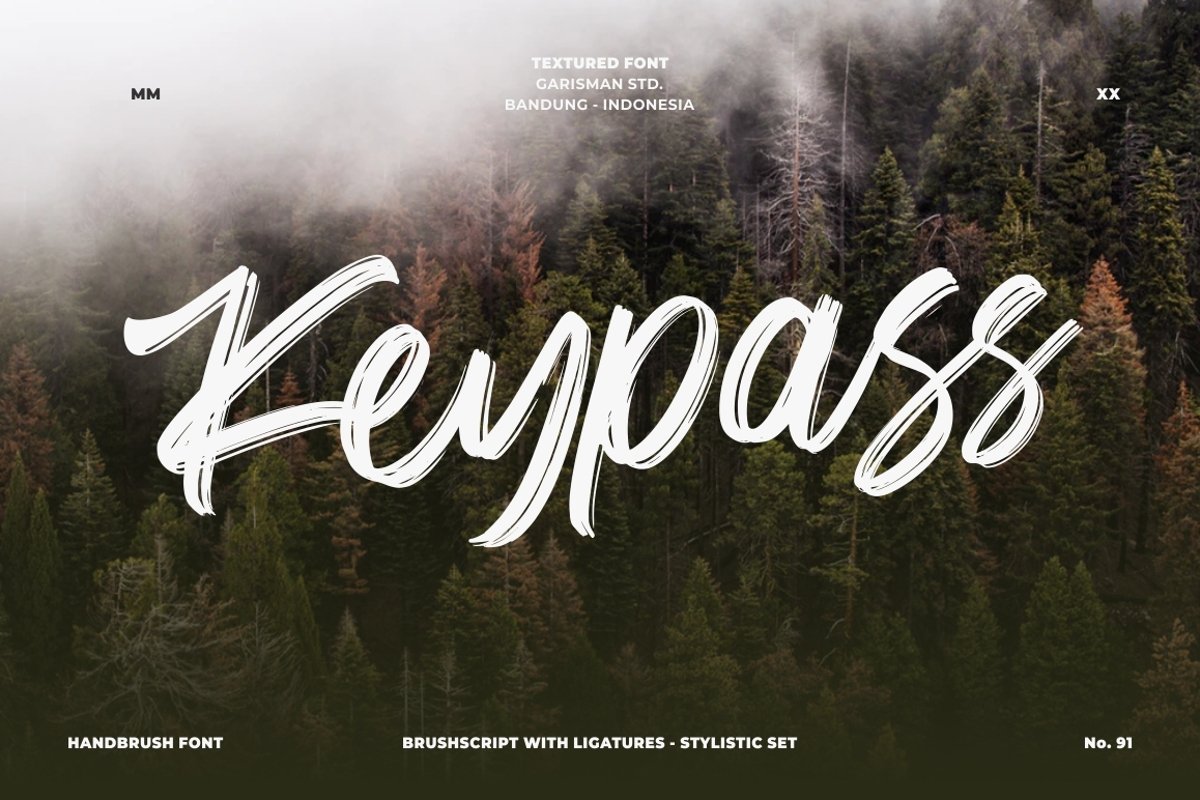
Keypass - Handbrush Font
Keypass
Introducing Keypass - Handbrush Font
Keypass combines attractive curves with a fresh urban edge; delivering a stylish script which is guaranteed to add an eye-catching appeal to your logo designs, brand imagery, handwritten quotes, product packaging, merchandise & social media posts
- Detailed dry brush